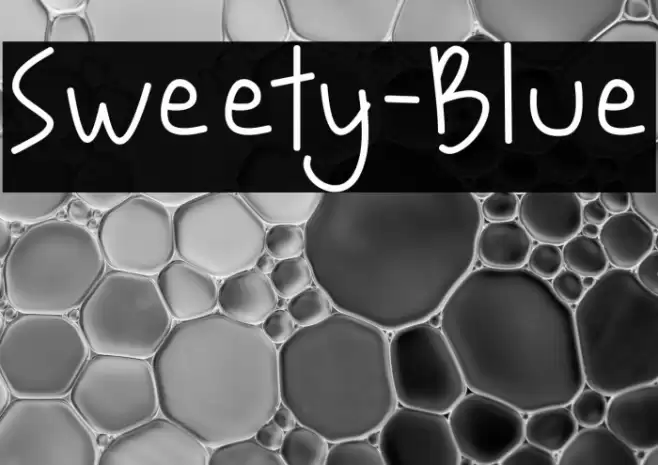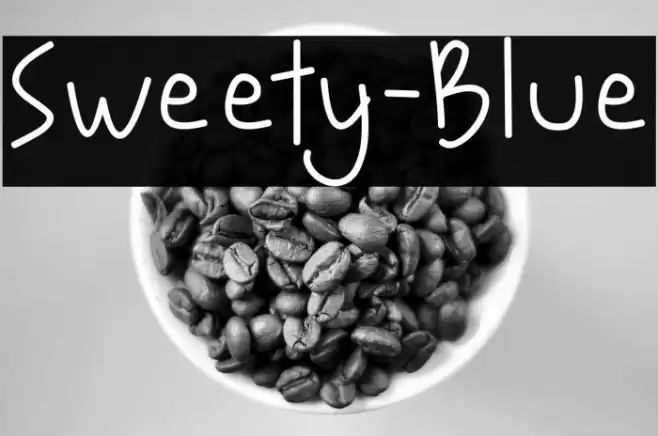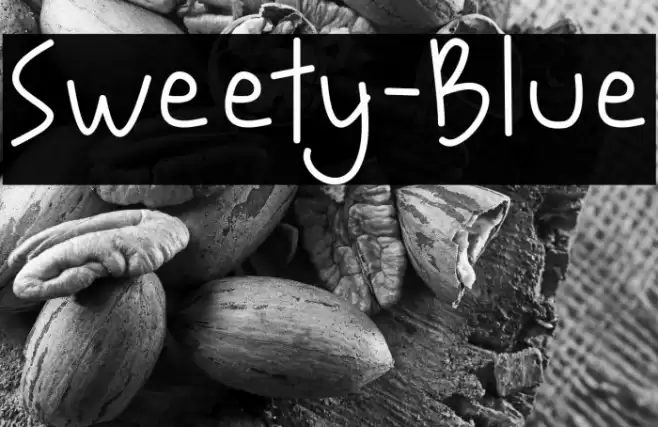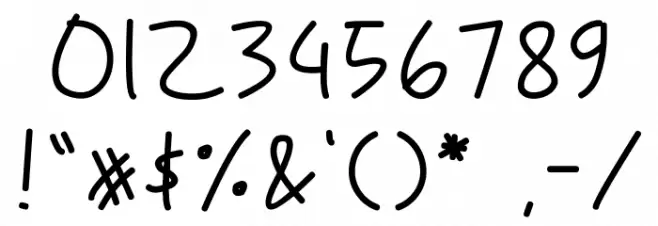
Sweety-Blue Font
Sweety-Blue Description
This font features a playful and casual handwritten style, characterized by its smooth, flowing curves and slightly irregular letterforms. The uppercase letters maintain a consistent height, while the lowercase letters exhibit a charming, informal appearance. The numbers are clear and easy to read, complementing the overall whimsical aesthetic. Special characters are thoughtfully designed to match the font's friendly and approachable vibe. The stroke width is consistent, providing a harmonious balance across all characters. This font is ideal for projects that require a personal touch, such as greeting cards, invitations, or playful branding.
A playful, handwritten font with smooth curves and a casual style from Regular fonts.
- Font: Sweety-Blue
- Proposed Projects: Greeting cards, invitations, playful branding, children's books, personal blogs.
- Overall Style: Casual, Playful
- Use Case: Headlines, Informal text, Branding